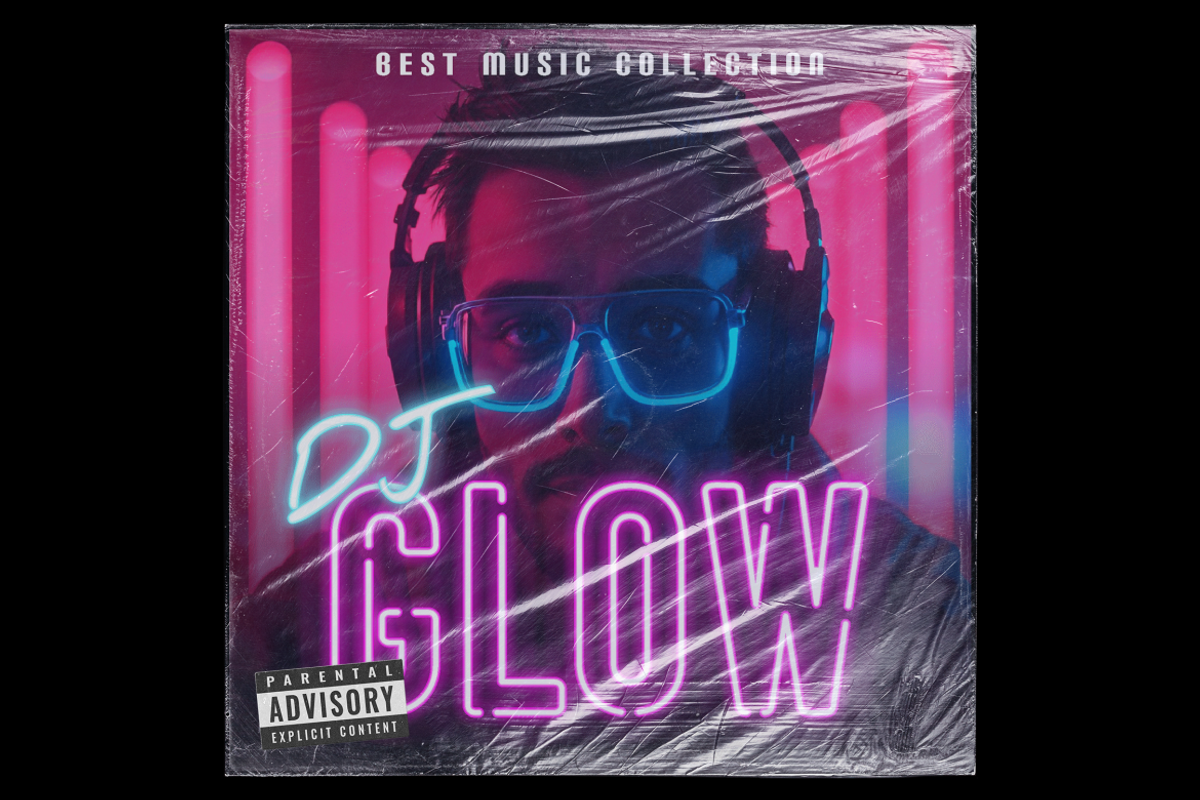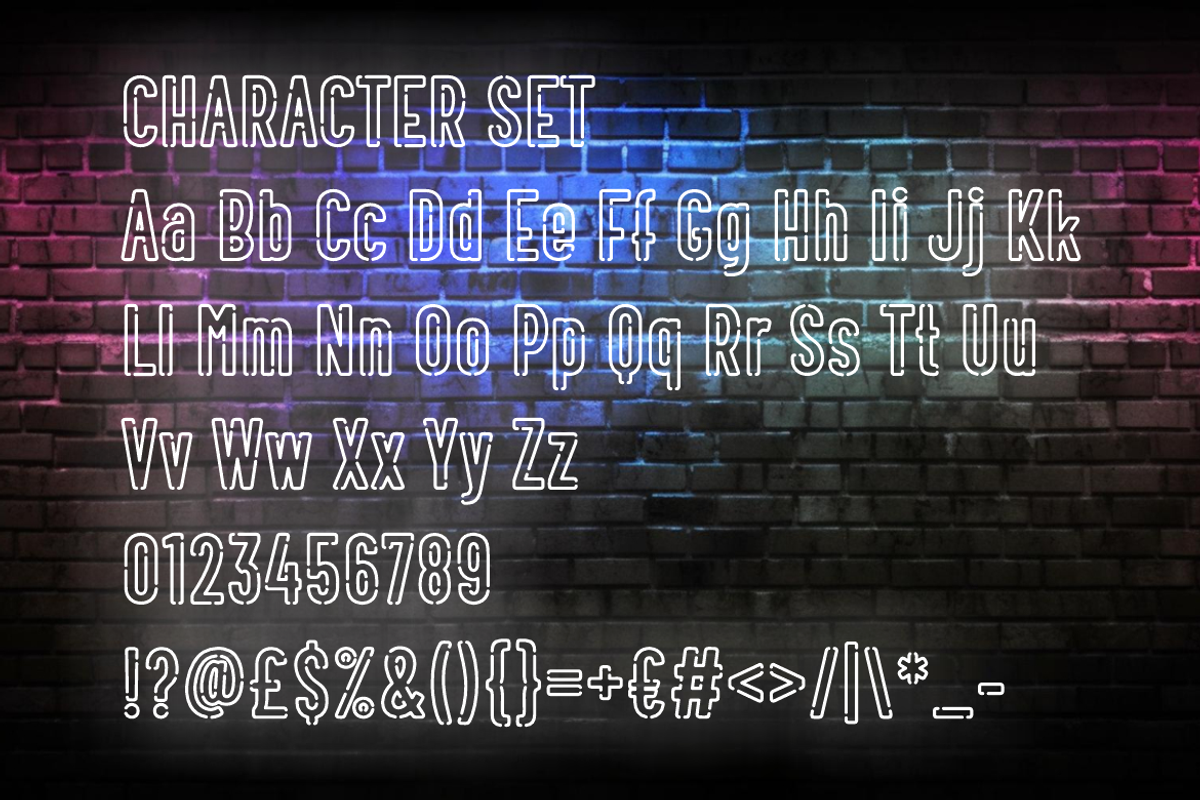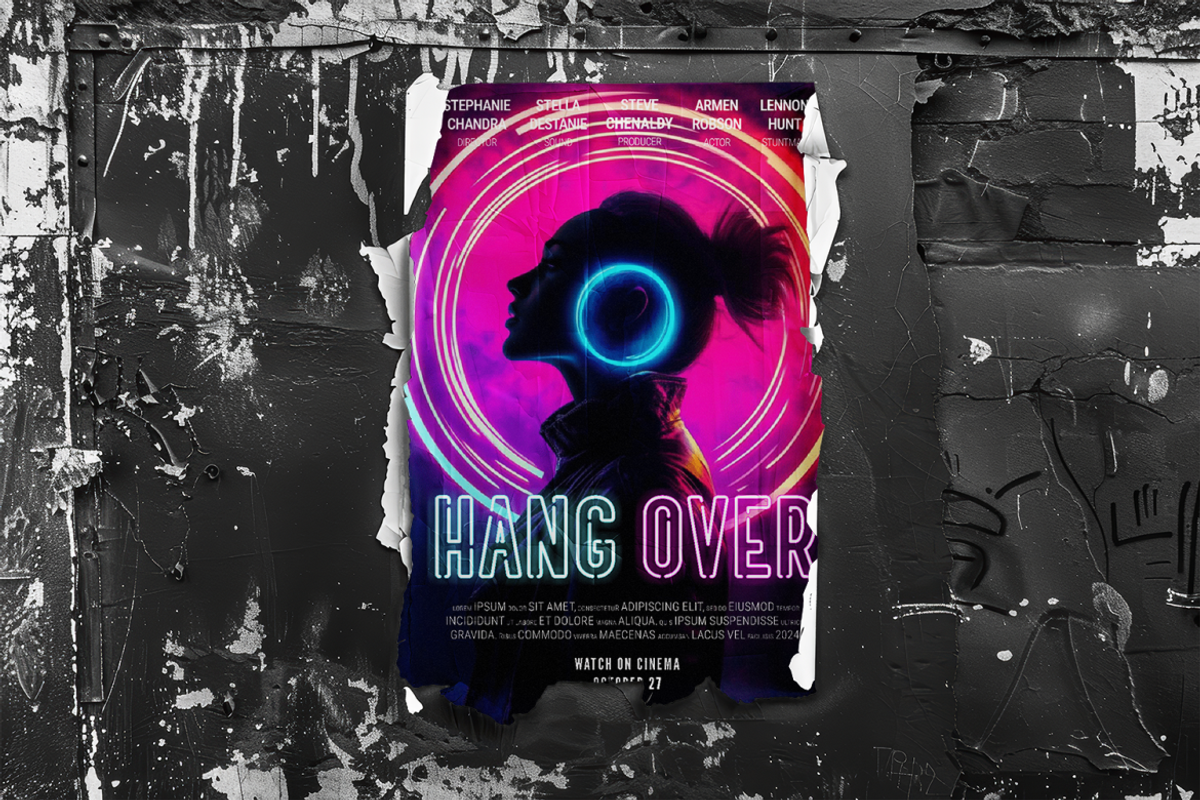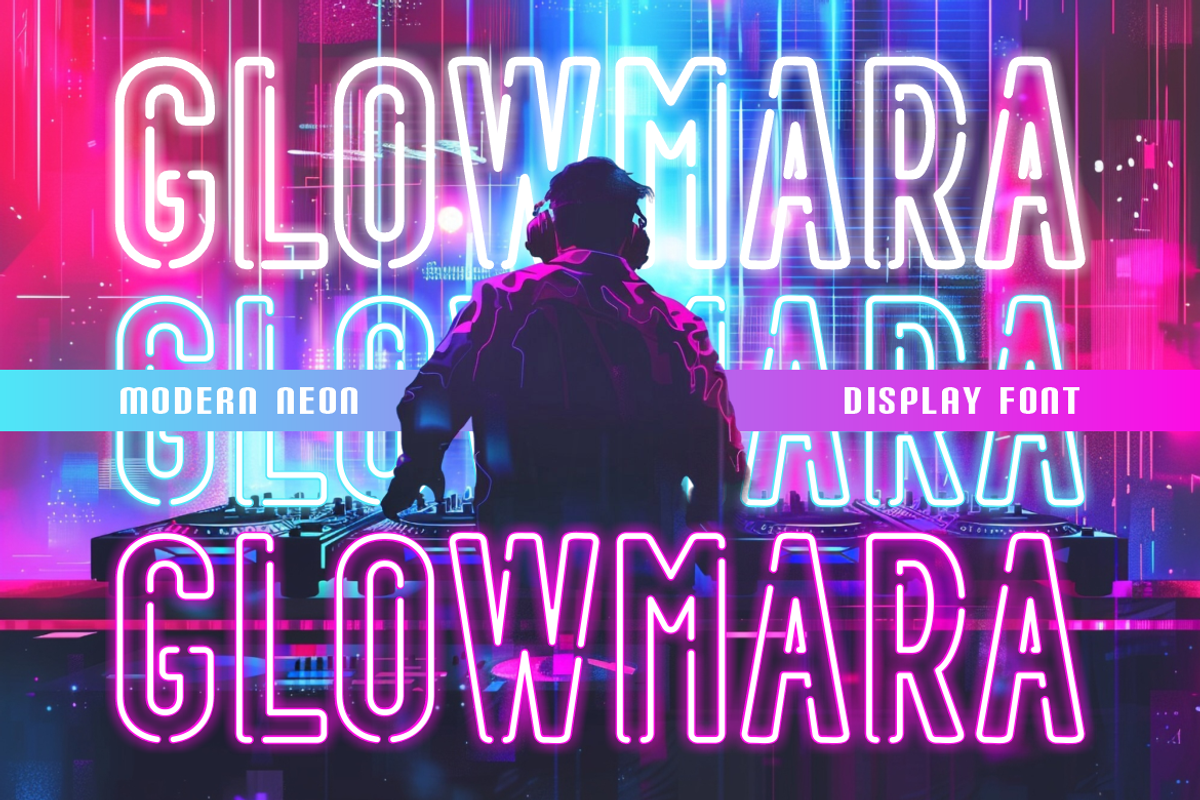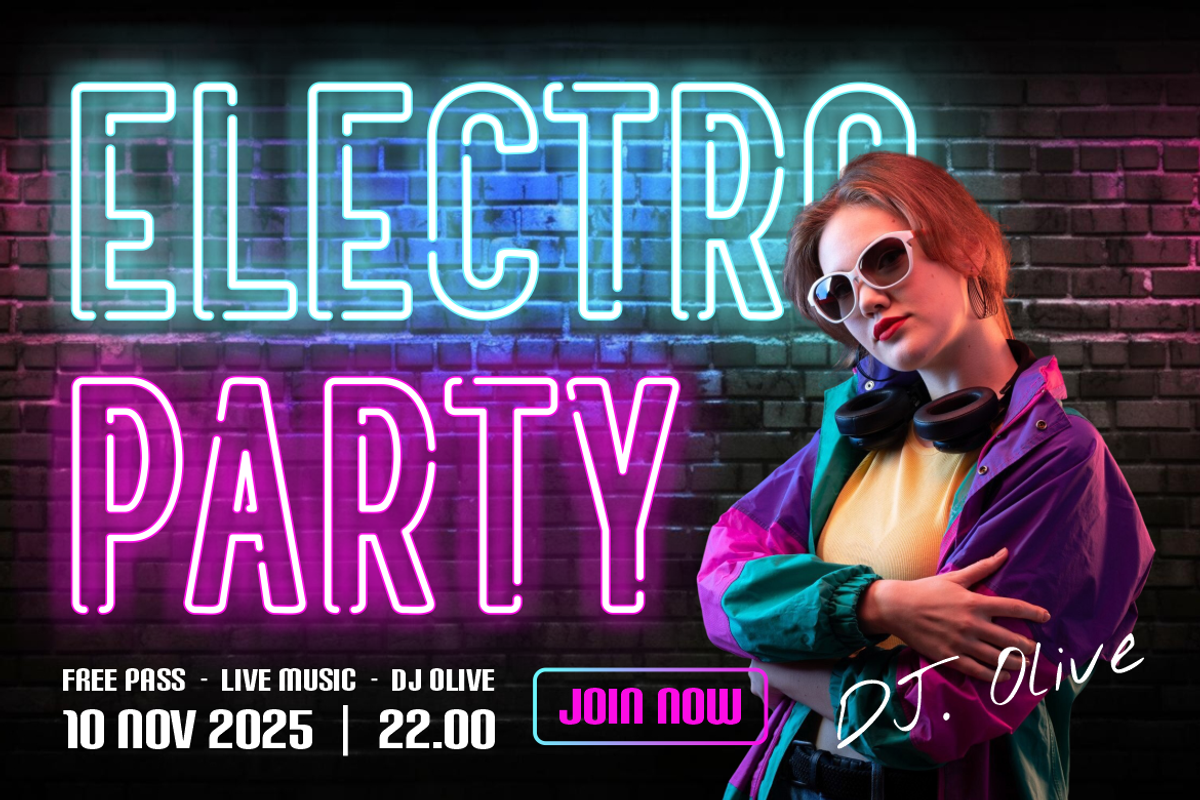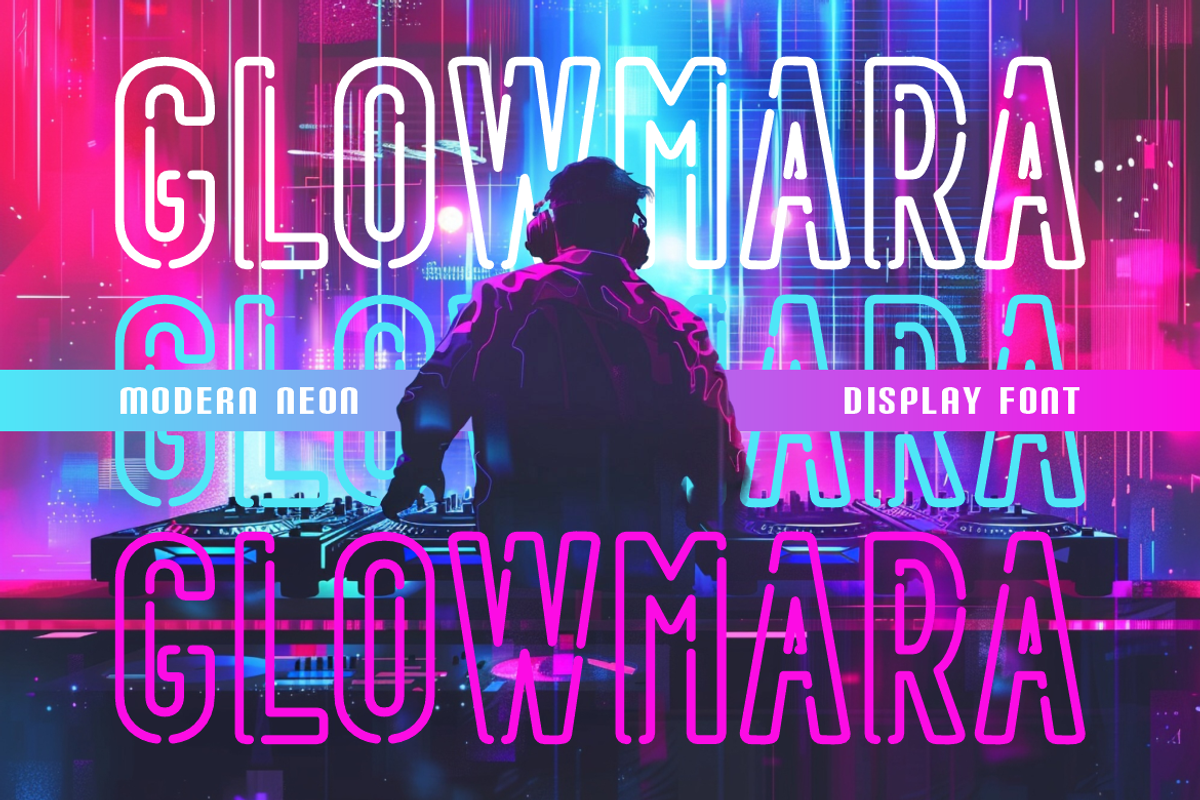
Glowmara Modern Neon Display Font
Glowmara Modern Neon Display Font brings a futuristic rhythm to any visual project. The letters are tall, slim, and structured with open linework that creates a strong illuminated impression. Every character uses consistent stroke width, giving the font a smooth and modern feel. Rounded corners soften the geometric shape, while the hollow interior design makes each glyph look dynamic and airy. This structure gives the typeface a unique presence, especially for large display compositions. Glowmara Modern Neon Display Font uses a clean, contemporary style that fits party themes, nightlife concepts, and digital atmospheres. Its shape is expressive but still readable, making it ideal for standout branding. The font suits creative needs that require a futuristic and energetic identity.
This font works well for logo design, bold headlines, posters, event promotions, album covers, packaging, film titles, magazine layouts, stickers, business projects, and typographic compositions with modern mood. The script pairs beautifully with electronic music themes, club promotions, technology branding, and youth-oriented campaigns. The slim structure allows long words to stay balanced in tight spaces, and its display-focused style enhances visual hierarchy in any design. The typeface also supports clear rhythm in crafting projects, invitation cards, and advertising layouts. Designers who seek a modern glow effect can apply this typeface as a core visual asset. Glowmara Modern Neon Display Font delivers a forward-looking aesthetic that helps any design stand out with confidence and energy.